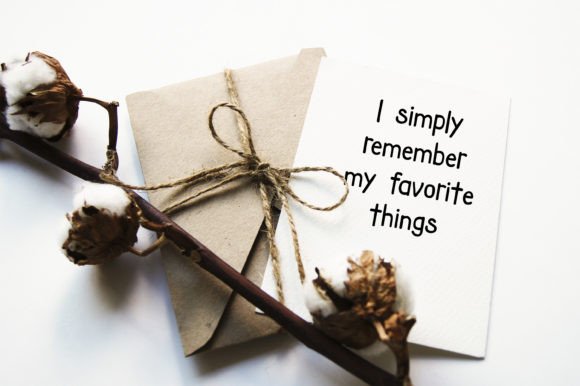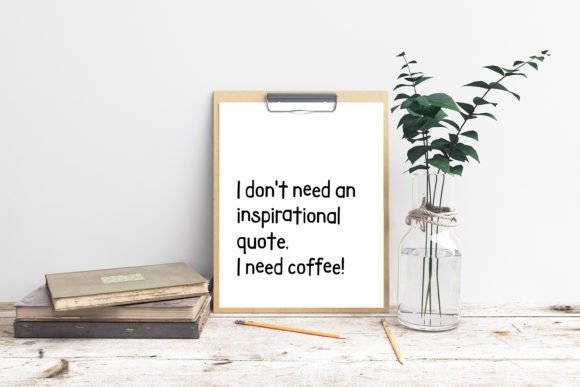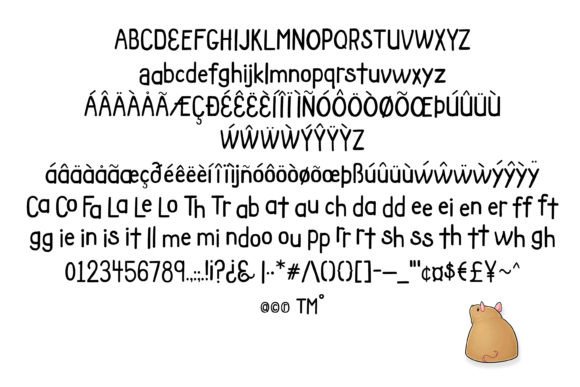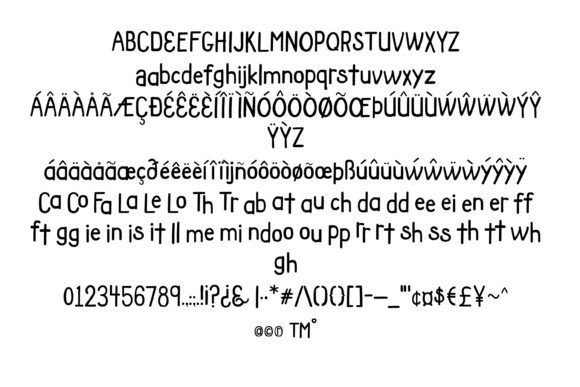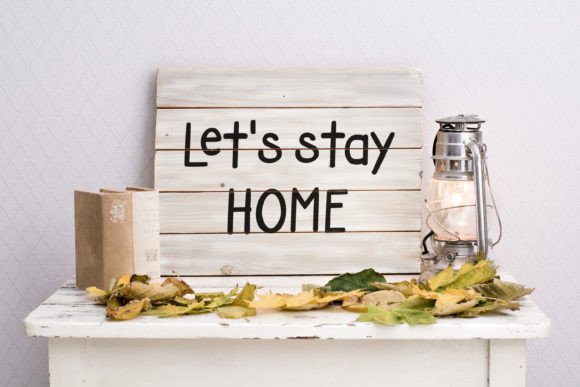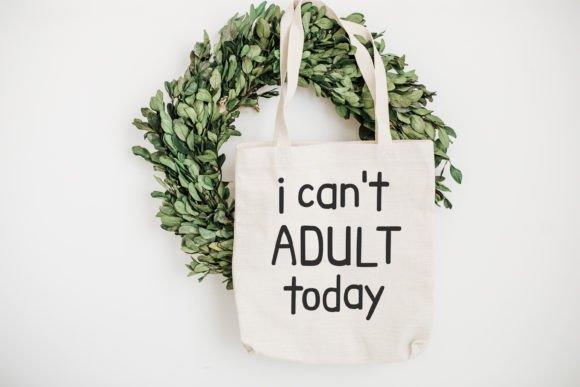
Introducing Fat Rat: The Ultimate Handcrafted Brush Sans-Serif Font for Creative Projects
Are you tired of using the same old fonts for your creative projects? Look no further! We’re excited to introduce Fat Rat, a handcrafted, brush sans-serif font that’s sure to take your designs to the next level. With its bold, thick character and playful twist, Fat Rat is the perfect addition to any designer’s toolkit.
A Font that’s Both Legible and Playful
Fat Rat’s bold, thick character is not just legible but also exudes a playful touch that’s sure to capture the attention of your audience. Each alphabet – both upper and lower case – has been designed with a playful twist to animate your words. Whether you’re working on a logo, a poster, or a social media graphic, Fat Rat’s unique character is sure to make your design stand out.
Ideal for Creative Applications
Fat Rat’s thick strokes are ideal for creative applications, from decals to iron-ons. The font’s chunky, uneven strokes add a unique, artistic touch to your projects, making them perfect for designers and crafters who want to add a personal touch to their work. Whether you’re creating custom apparel, home decor, or accessories, Fat Rat is the perfect font to use.
Fat Rat is more than just a font – it’s a design tool that offers endless possibilities. Equipped with additional stylistic alternatives and ligatures, Fat Rat allows you to experiment with different designs and create unique pieces that reflect your style. With Fat Rat, you can:
- Create custom logos and branding materials that stand out
- Design eye-catching posters and flyers that grab attention
- Make custom apparel and accessories that reflect your personality
- Add a personal touch to your home decor and stationery
What Sets Fat Rat Apart
So, what sets Fat Rat apart from other fonts? Here are a few things that make Fat Rat unique:
- Handcrafted with love: Fat Rat is a handcrafted font that’s been designed with care and attention to detail.
- Bold and playful: Fat Rat’s bold, thick character is both legible and playful, making it perfect for a wide range of design applications.
- Chunky, uneven strokes: Fat Rat’s chunky, uneven strokes add a unique, artistic touch to your projects.
- Additional stylistic alternatives and ligatures: Fat Rat comes with additional stylistic alternatives and ligatures, giving you endless design possibilities.